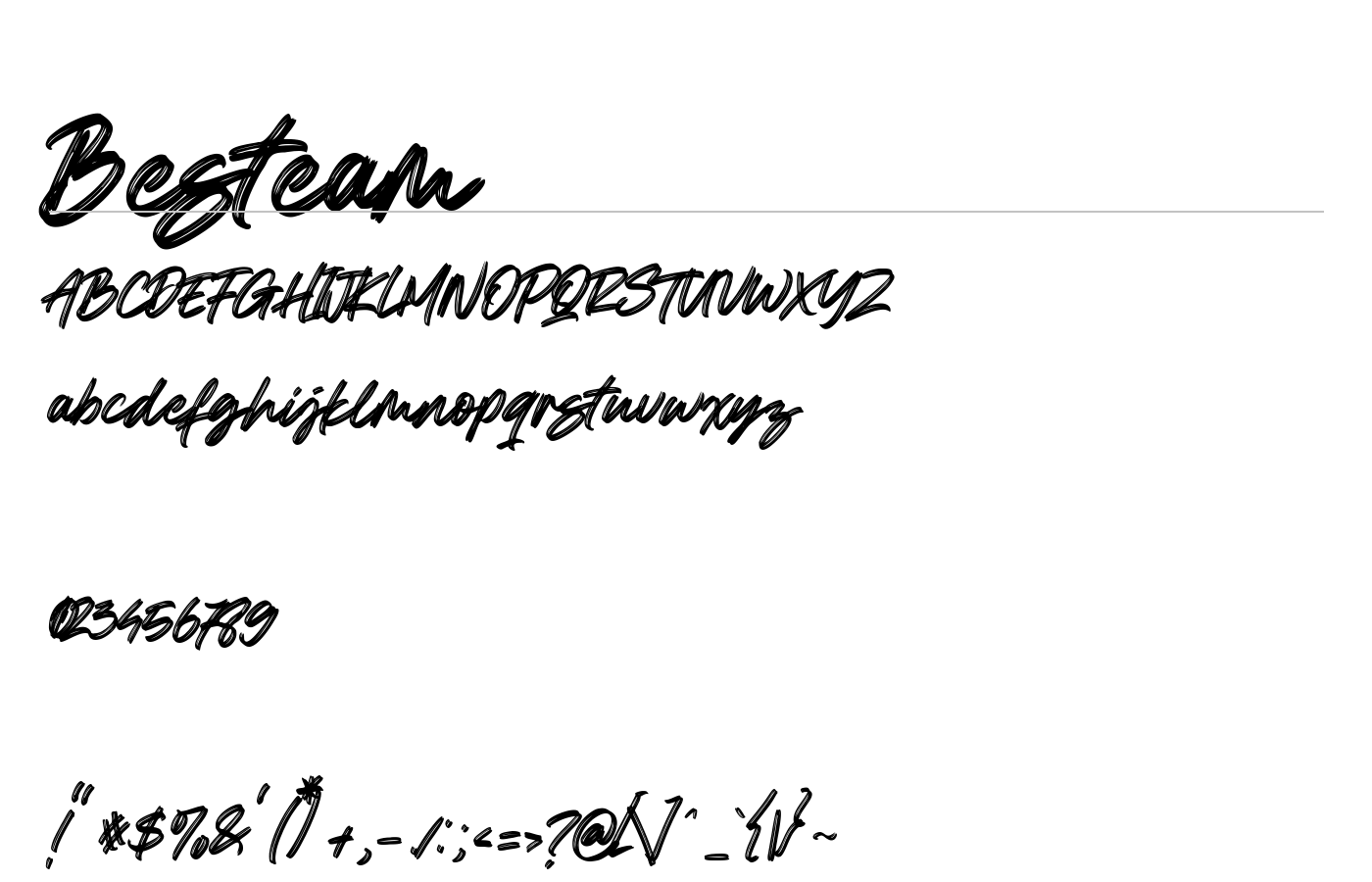
Besteam is a bold, expressive script font with a lively, handwritten feel that combines energetic brush strokes and casual elegance. Its slightly condensed letterforms and high contrast strokes make it perfect for adding a personal, dynamic touch to branding, posters, or creative headlines where a modern, artistic vibe is desired. This font works well for projects seeking to convey friendliness and style while maintaining strong visual impact.
Besteam Font
About Besteam Font
| Font family | Besteam Font |
| Designer | Muh Aswar by Azetype Studio |